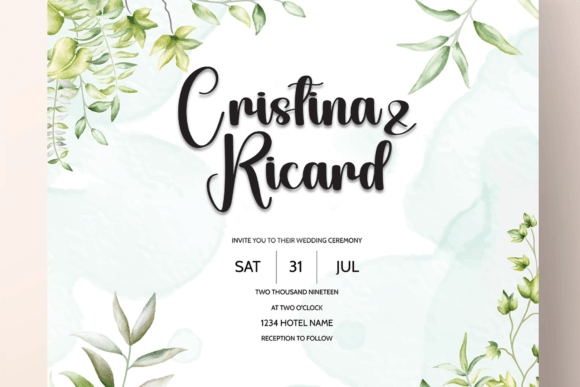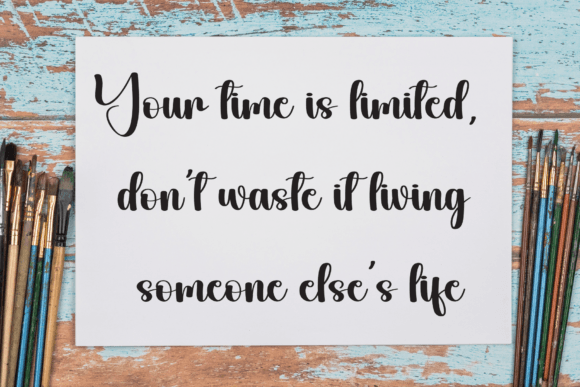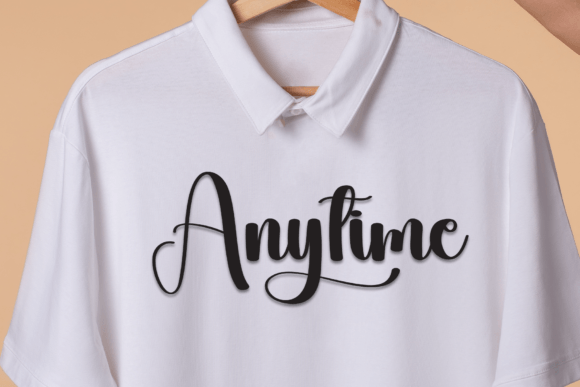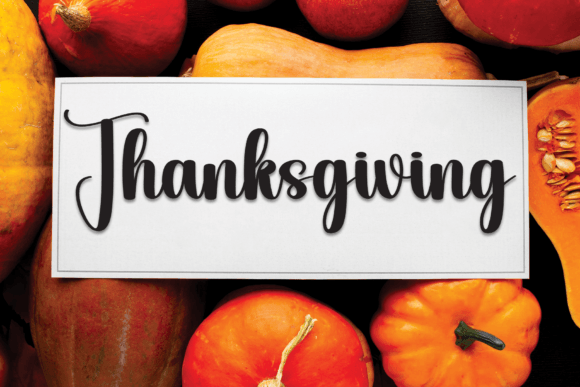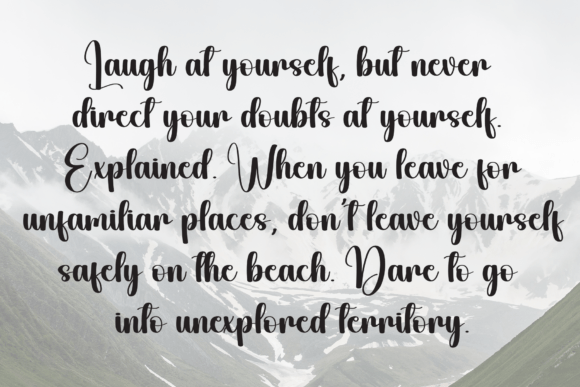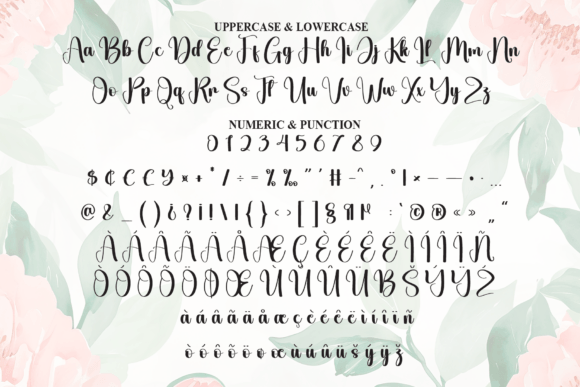
Introducing Angela Font: The Epitome of Handwritten Elegance
In the realm of typography, few fonts manage to capture the essence of handwritten elegance while exuding a playful vibe. Angela Font is one such delightful display font that has been making waves in the design community. With its sweet and amicable character, Angela Font is the perfect addition to any design project that craves a dash of enjoyable quirk.
The Charm of Handwritten Elegance
Handwritten fonts have always been a favorite among designers, and for good reason. They add a personal touch to any design, making it feel more approachable and relatable. Angela Font takes this concept to the next level with its elegant and refined handwritten style. Each letter is carefully crafted to perfection, showcasing a level of sophistication that’s hard to find in digital fonts.
A Sweet and Amicable Character
What sets Angela Font apart from other display fonts is its sweet and amicable character. The font’s playful vibe is infectious, making it perfect for designs that require a touch of whimsy. Whether you’re creating wedding invitations, greeting cards, or social media graphics, Angela Font is sure to bring a smile to your audience’s faces.
Wedding invitations and greeting cards are two design projects that can greatly benefit from Angela Font’s elegant and playful style. The font’s handwritten elegance adds a romantic touch to wedding invitations, making them feel more personal and special. Similarly, Angela Font’s playful vibe makes it perfect for greeting cards, adding a fun and lighthearted touch to any message.
Adding a Dash of Enjoyable Quirk to Your Designs
Angela Font is more than just a font – it’s a design statement. With its unique blend of elegance and playfulness, this font can instantly elevate your designs and make them stand out from the crowd. Whether you’re a seasoned designer or a crafty DIY enthusiast, Angela Font is the perfect tool to add a dash of enjoyable quirk to your designs.
Tips for Using Angela Font in Your Designs
To get the most out of Angela Font, here are a few tips to keep in mind:
- Use Angela Font as a display font to add emphasis to your design. Its elegant and playful style makes it perfect for headings and titles.
- Pair Angela Font with a simpler font to create visual interest. This will help balance out the design and prevent it from feeling too cluttered.
- Experiment with different colors and textures to add depth to your design. Angela Font looks great in bold colors and can be paired with a variety of textures to create a unique look.
Why Designers and Crafters Love Angela Font
Angela Font has quickly become a favorite among designers and crafters, and for good reason. Here are a few reasons why:
- Unique style: Angela Font’s handwritten elegance and playful vibe make it a standout in the world of typography.
- Versatility: This font can be used in a variety of design projects, from wedding invitations to social media graphics.
In conclusion, Angela Font is a delightful display font that brings a touch of handwritten elegance and playful charm to any design project. With its sweet and amicable character, this font is perfect for wedding invitations, greeting cards, and any design that craves a dash of enjoyable quirk. Whether you’re a seasoned designer or a crafty DIY enthusiast, Angela Font is sure to become a favorite in your design arsenal.